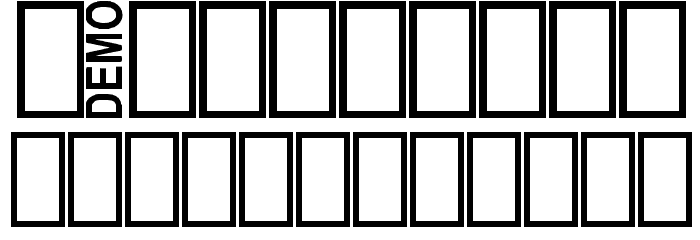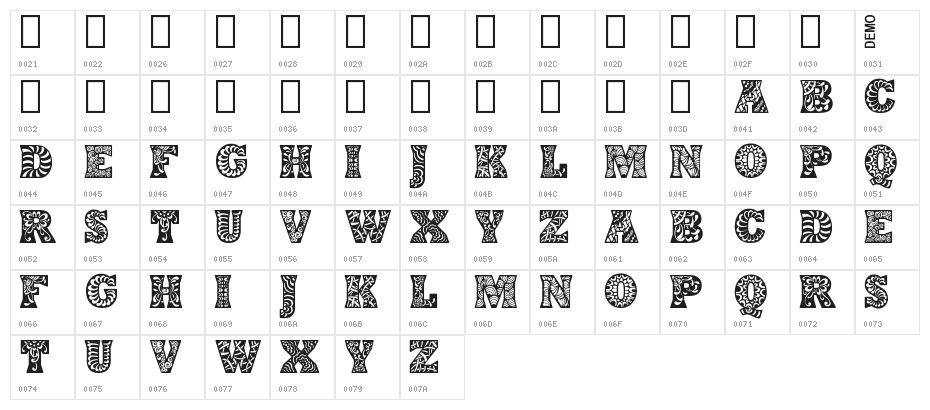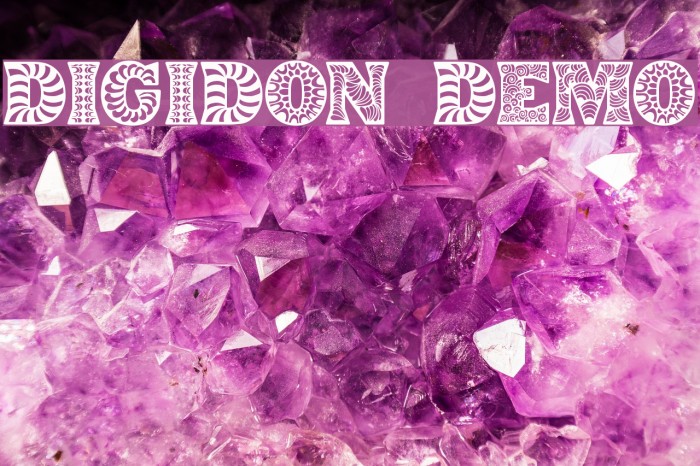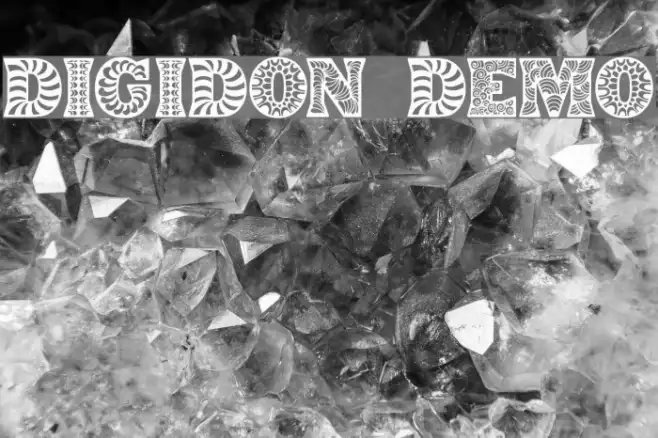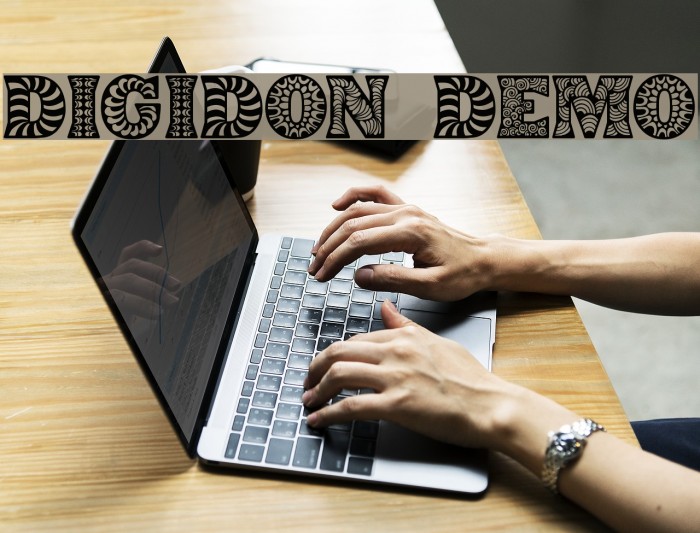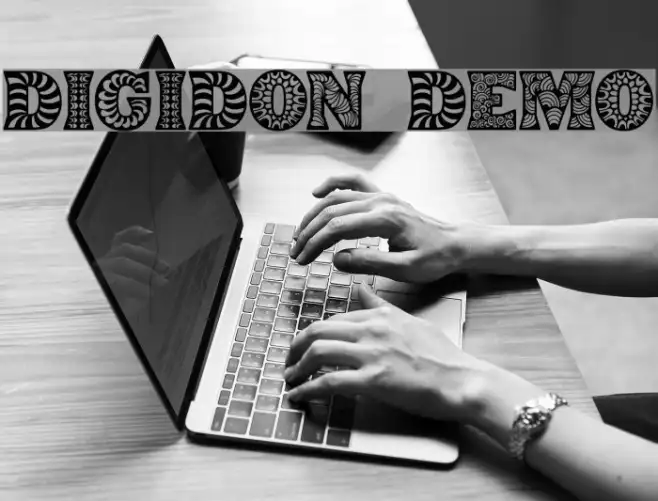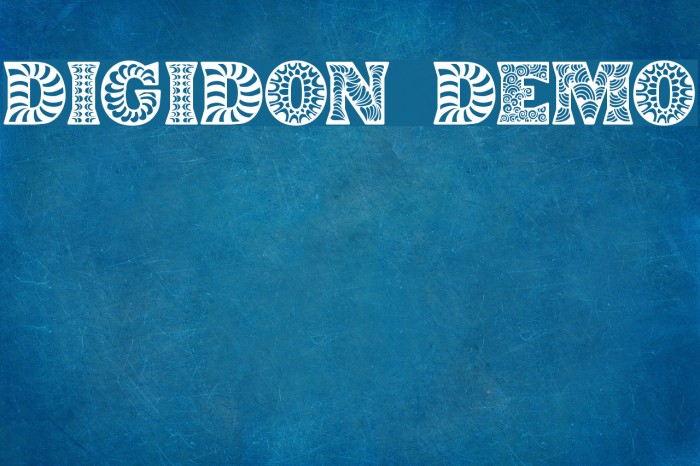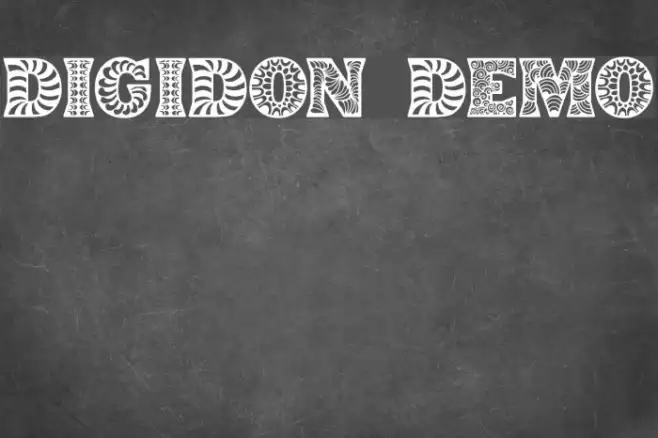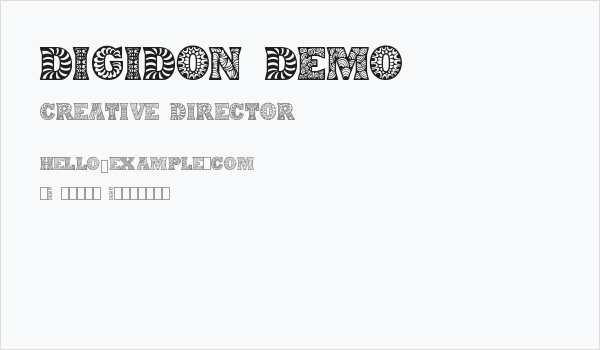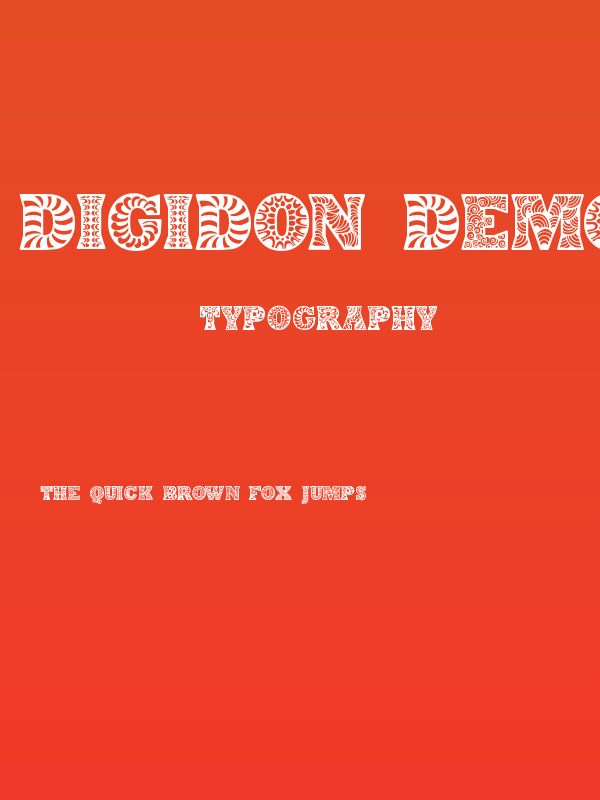
Digidon Demo Font
Digidon Demo Description
This font is a highly decorative and artistic typeface, featuring intricate patterns and designs within each letter. The uppercase letters are filled with unique motifs, ranging from spirals and floral elements to geometric shapes, giving each character a distinct and ornate appearance. The bold and blocky structure of the letters contrasts with the detailed inner designs, creating a striking visual impact. This font is ideal for creative projects that require a touch of whimsy and artistic flair. It stands out with its elaborate style, making it suitable for eye-catching headlines or artistic displays.
| Use Case | Headlines, Logos, Artistic Displays |
| Proposed Projects | Ideal for artistic posters, creative branding, unique invitations, and decorative headlines. |